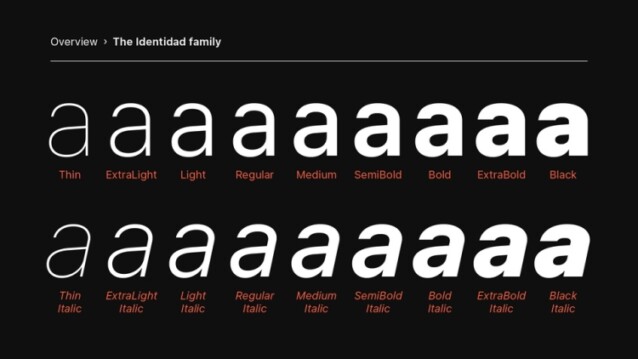
Identidad Font Family
Identidad Font is a modern and cool sans-serif font family crafted & designed by Punchform. Its clean and straightforward characters are carefully crafted to ensure effortless legibility across various mediums.
This sans-serif typeface is your go-to choice for projects that demand a no-nonsense approach to typography. Whether you’re creating user interfaces, instructional manuals, or branding materials that require a modern and approachable aesthetic, Identidad font offers a seamless fusion of ease and style.
The full family Identidad has nine weights, each with corresponding italics, 710 glyphs, and 17 OpenType features (aalt, calt, case, ccmp, dnom, frac, locl, numr, ordn, pnum, sinf, ss01, ss02, subs, sups, tnum, zero).
Identidad supports 377 languages and covers 3 Unicode blocks (Basic Latin, Latin-1 Supplement, Latin Extended-A).